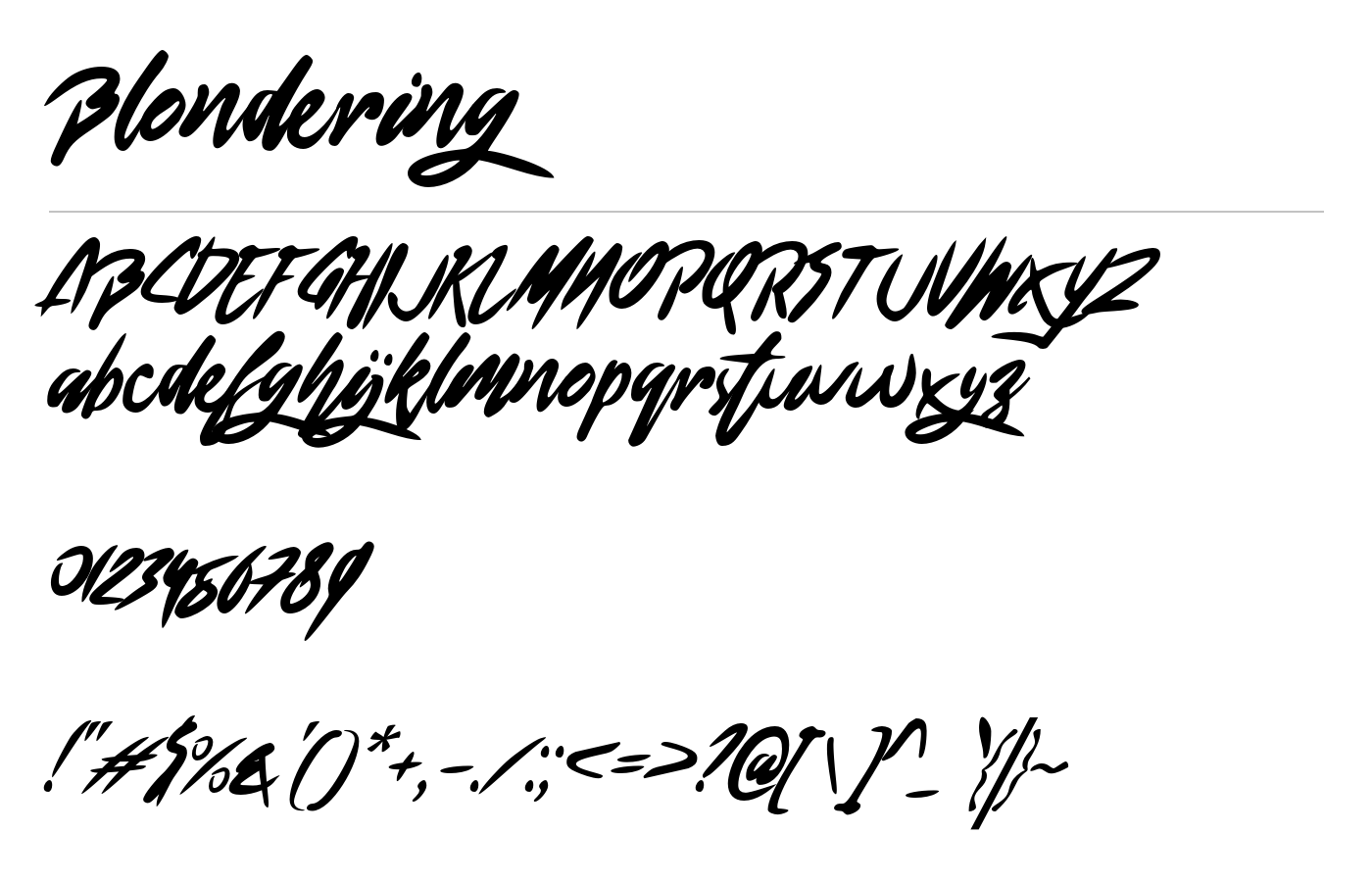
Blondering is a bold, dynamic script font characterized by its energetic, brush-like strokes and informal, handwritten style. It features a high x-height with fluid, connected letterforms that convey a sense of movement and personality, making it perfect for creative, expressive branding and eye-catching headlines. This font works well in designs that seek a lively, artistic vibe, such as logos, posters, and fashion-related projects where a strong, personal touch is desired.
Blondering Font
About Blondering Font